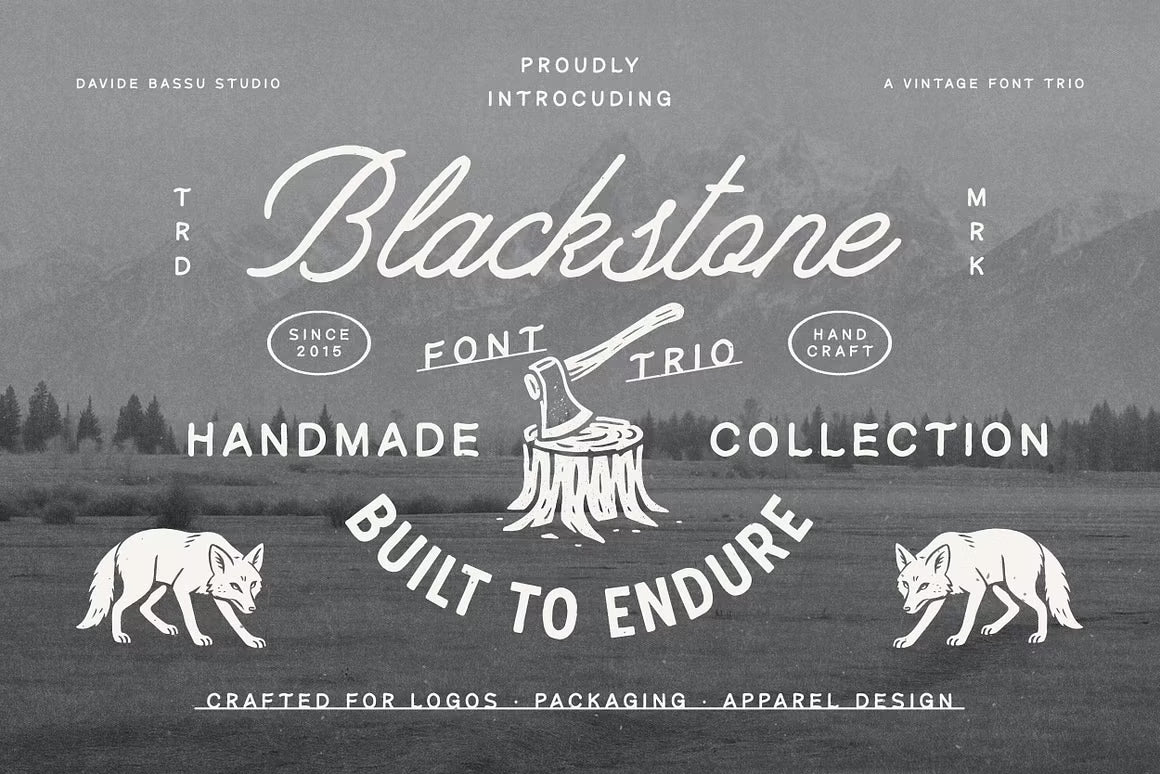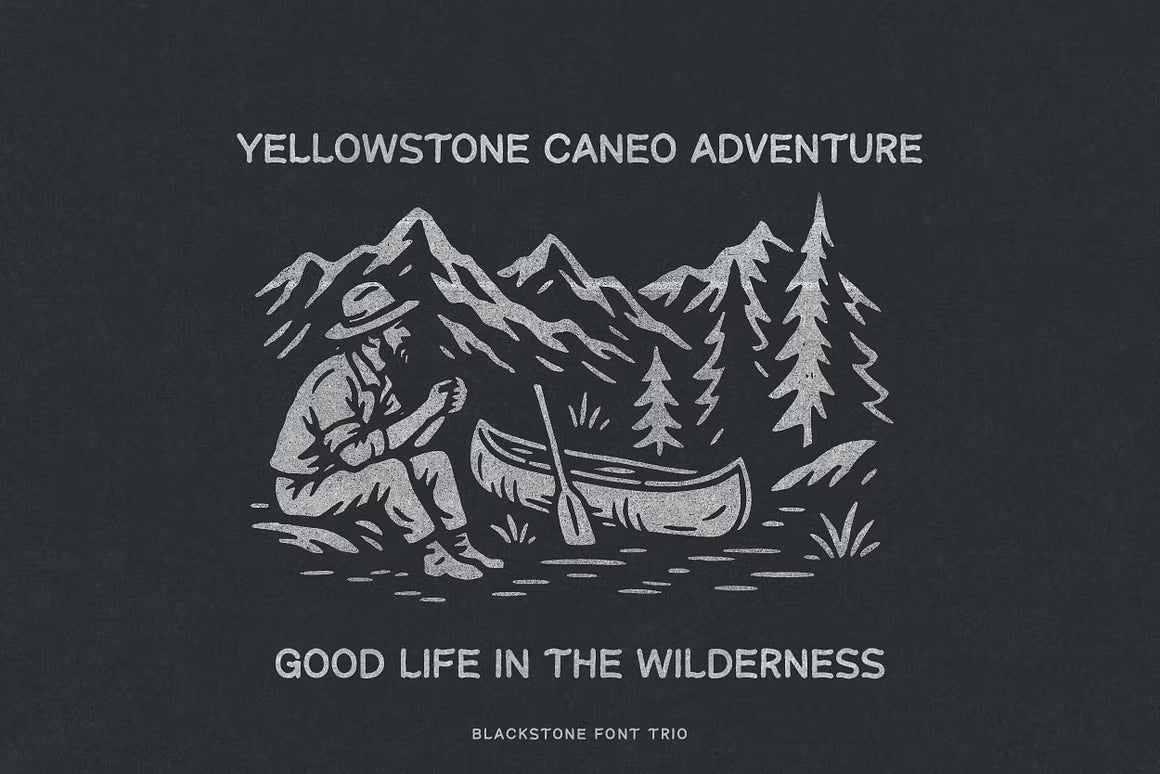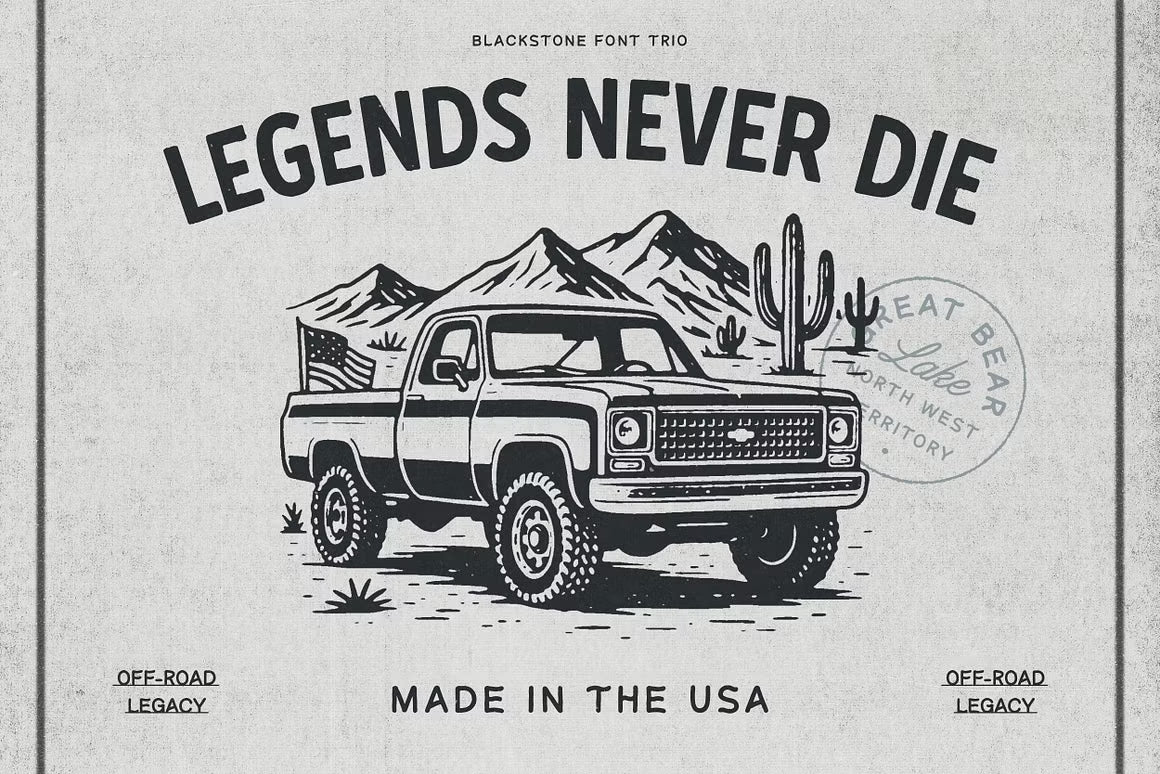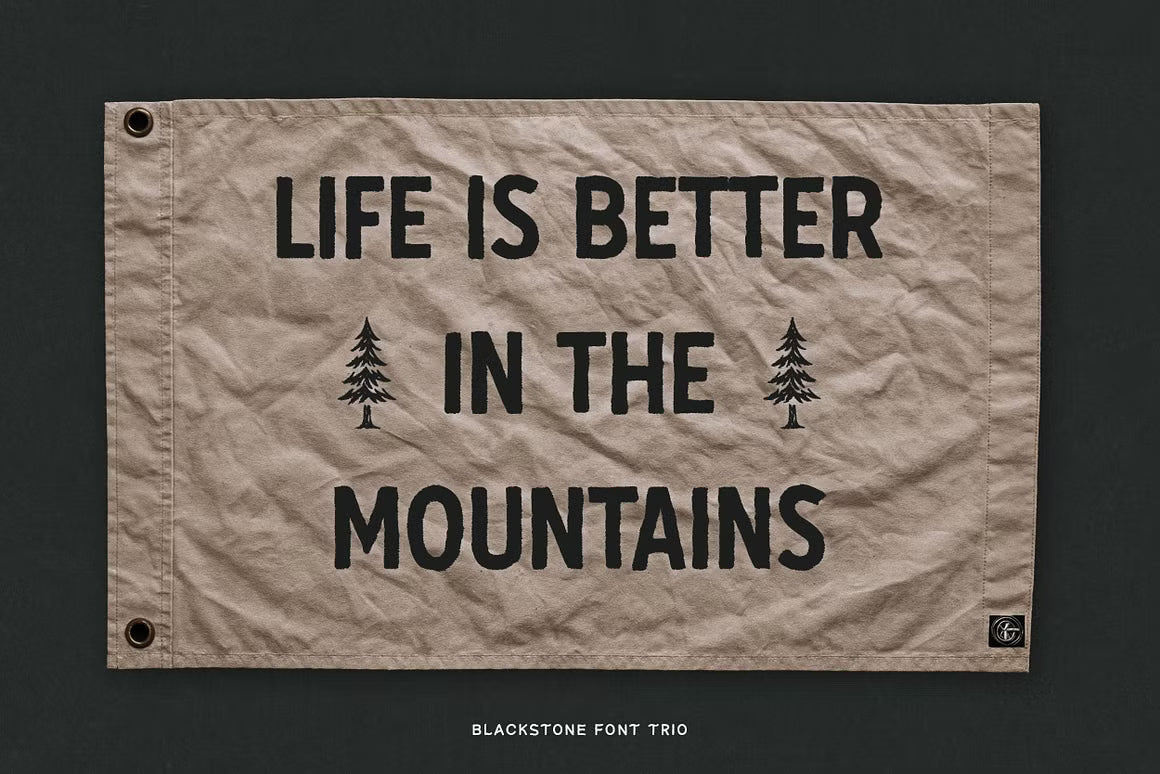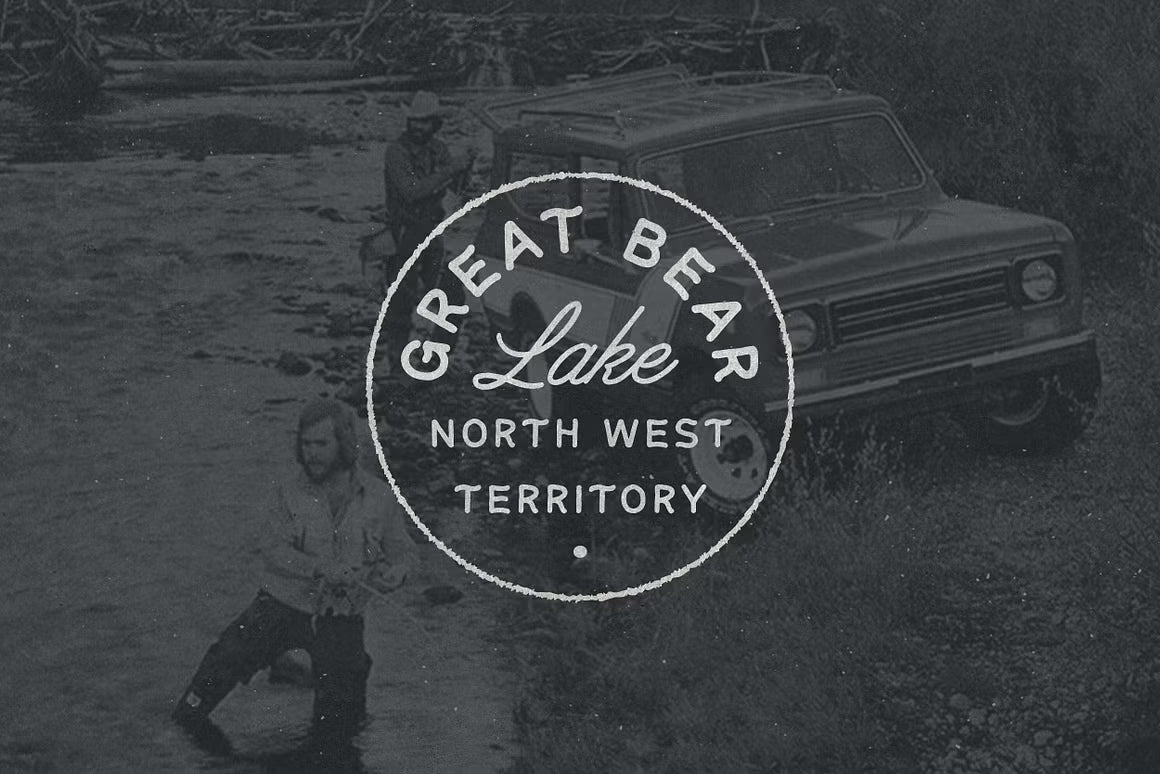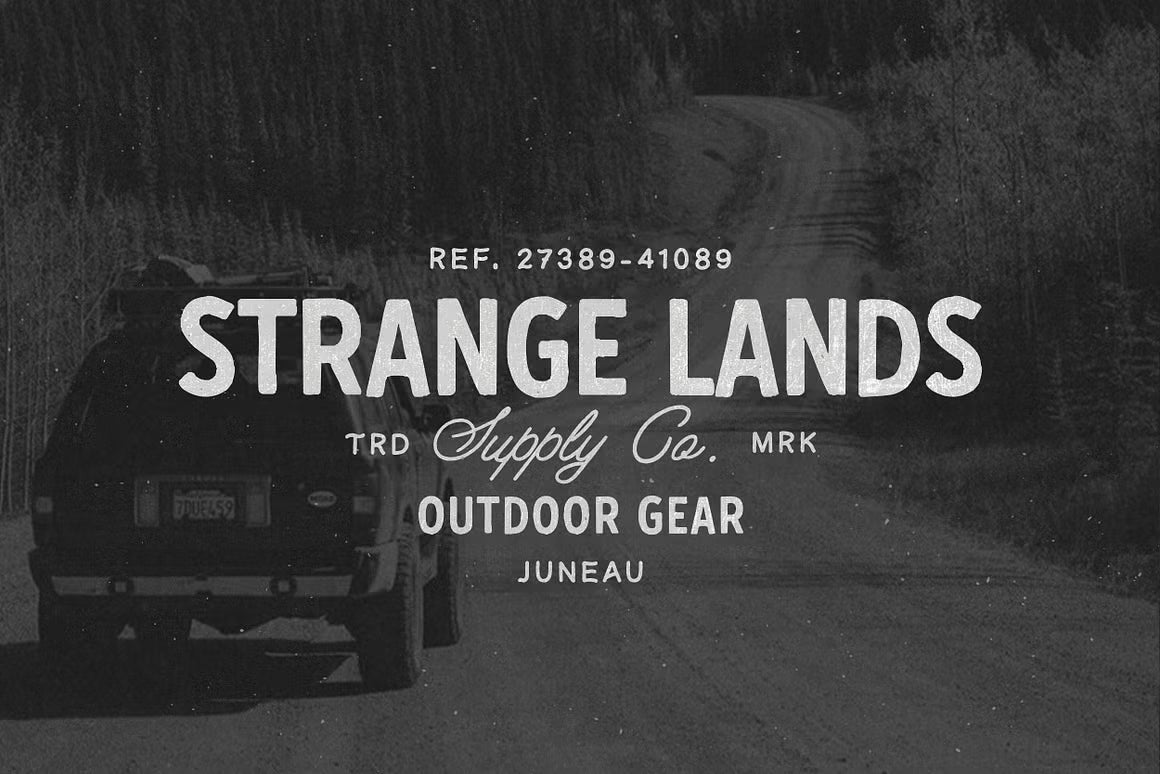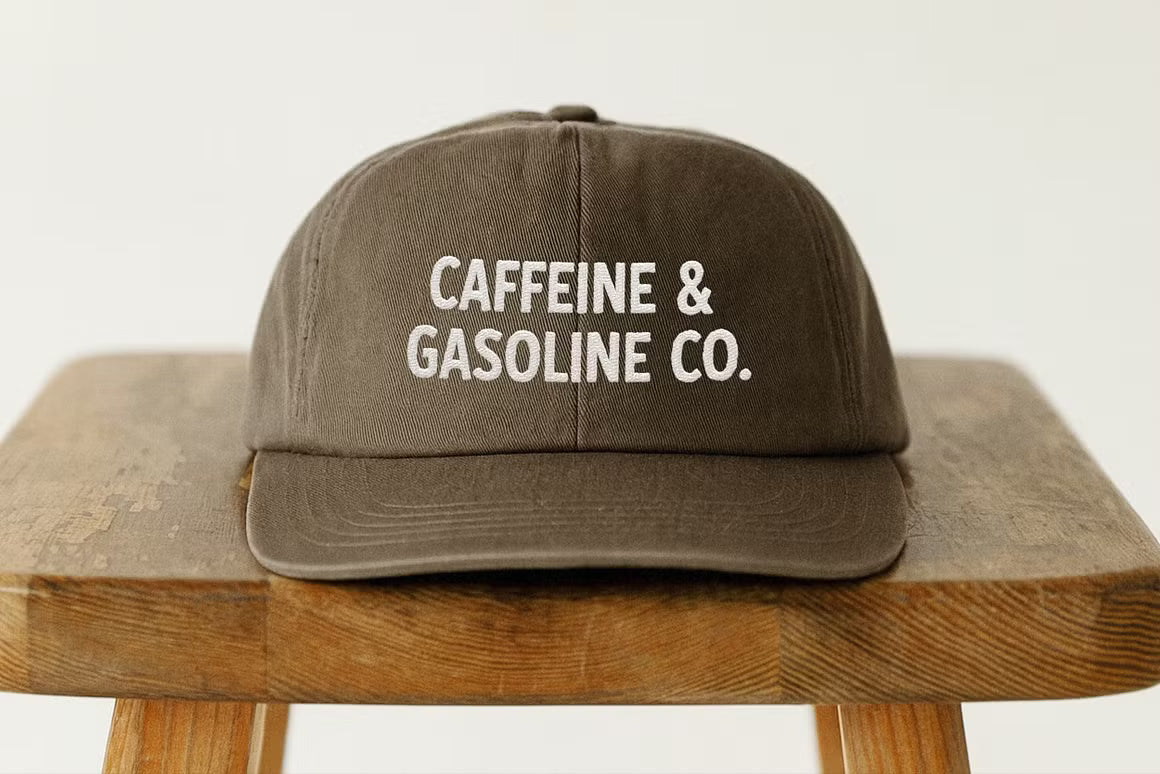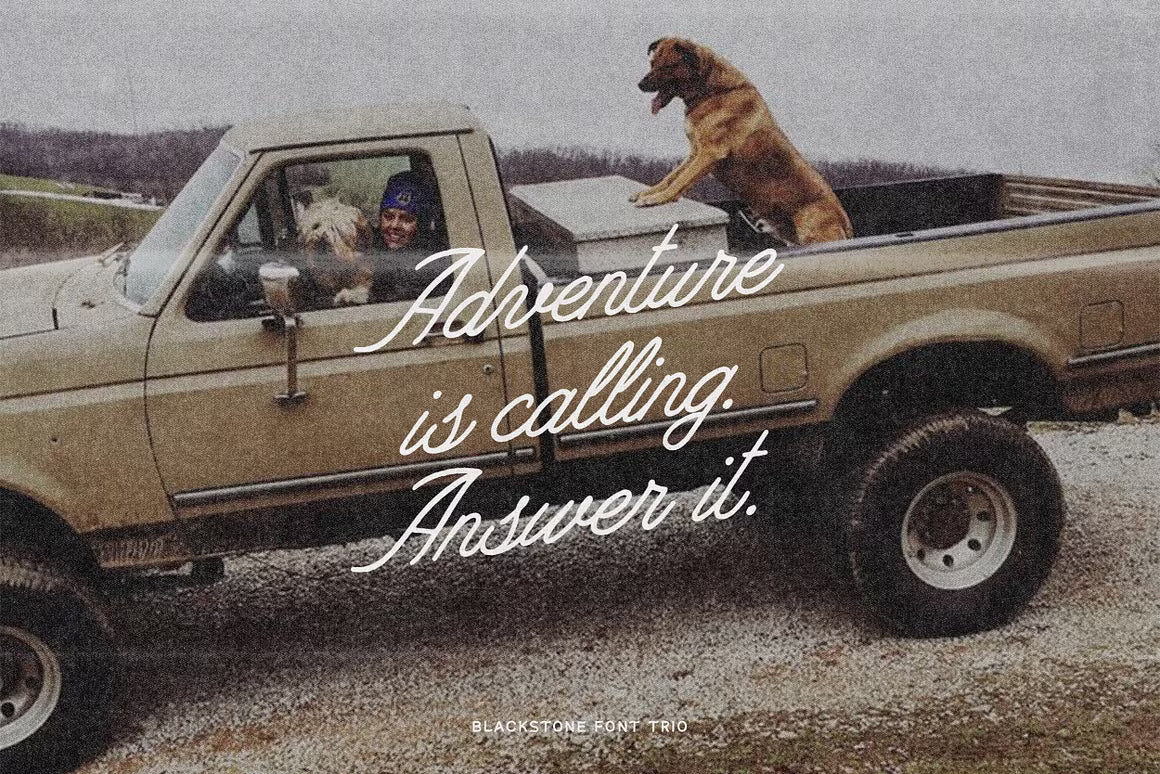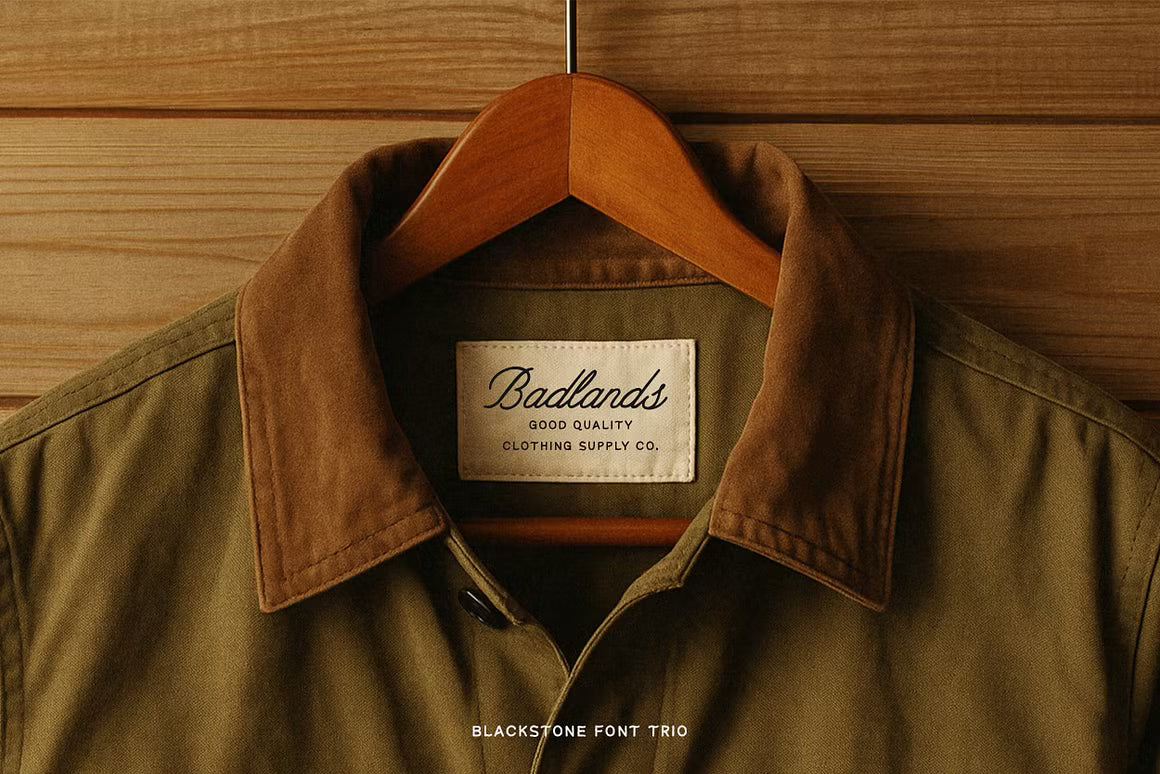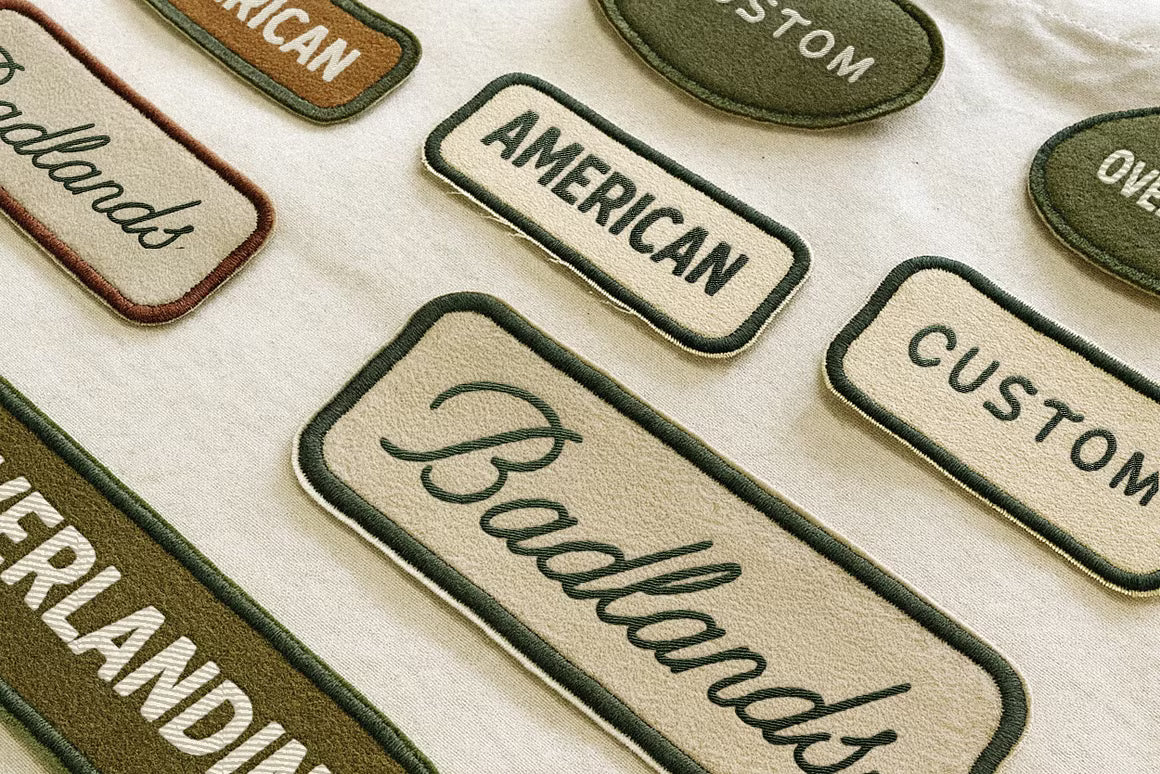
Blackstone Caption
Blackstone – Handmade Font Trio is a bold, authentic typeface collection that brings together three distinct styles: a flowing hand-drawn script, a strong display sans, and a clean caption font. Inspired by vintage outdoor heritage and rugged craftsmanship, Blackstone feels like it was built for adventure — perfect for logos, apparel graphics, packaging, posters, and brands that want to convey strength, soul, and storytelling.
Each font keeps natural handmade imperfections while remaining highly usable, giving your designs that genuine, lived-in character. Whether you're creating a full outdoor brand or a single impactful piece, this trio offers incredible versatility and cohesion.
A powerful set for creators who value authenticity over perfection.